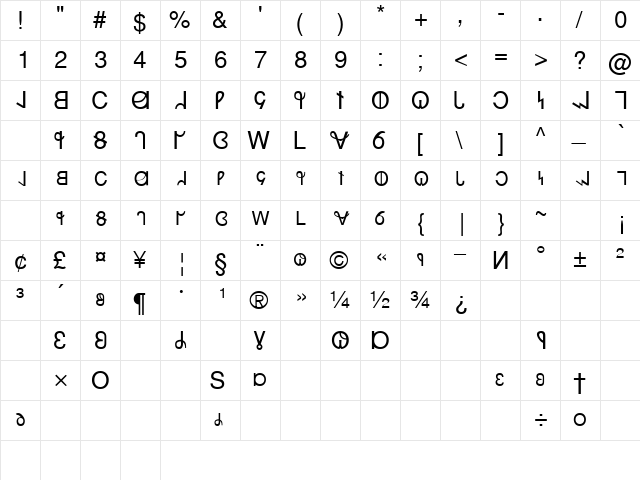
LevantSCapsSSK Regular
LevantSCapsSSK takes a measured approach to typography — its balanced proportions and neutral character make it a reliable workhorse for both digital and print work.